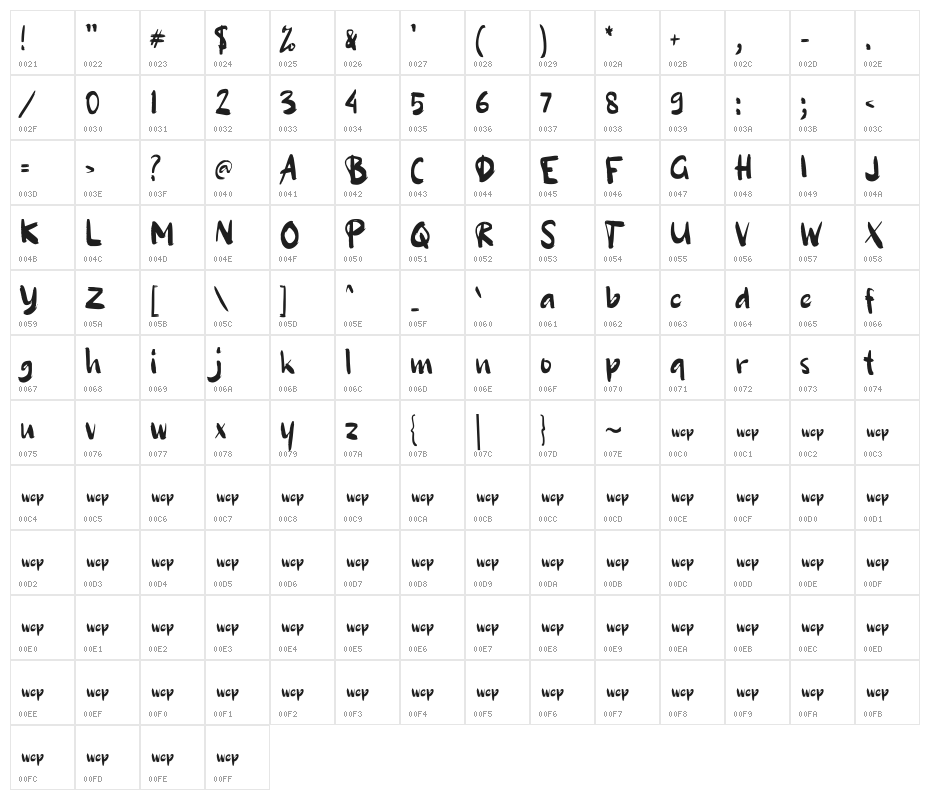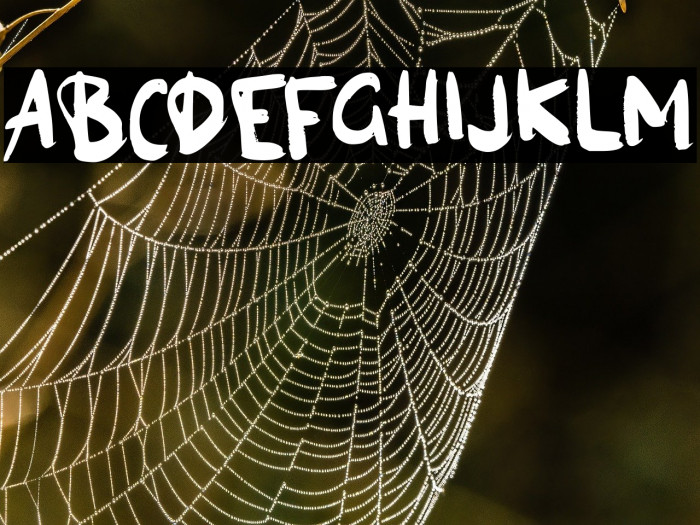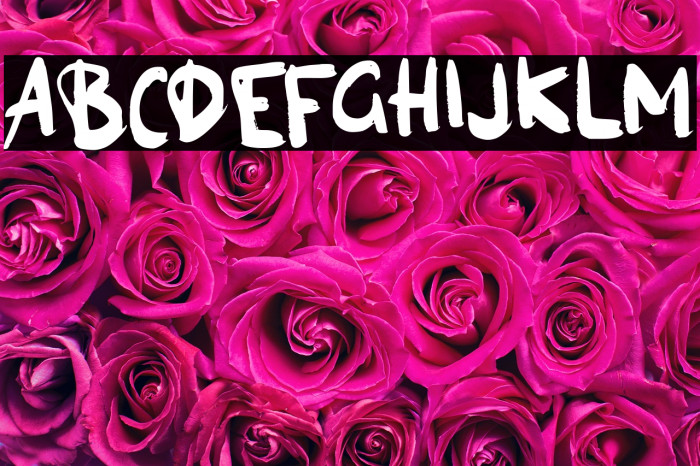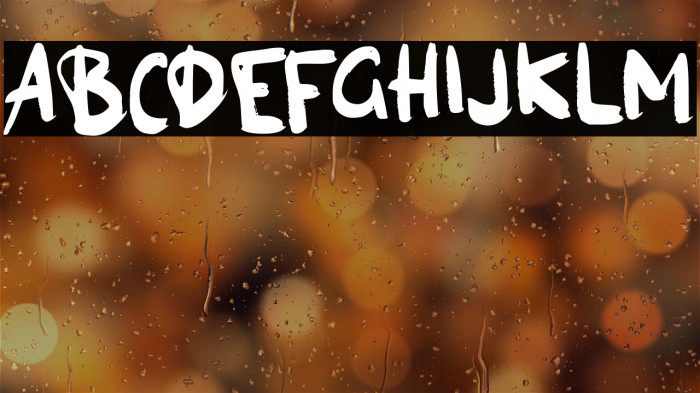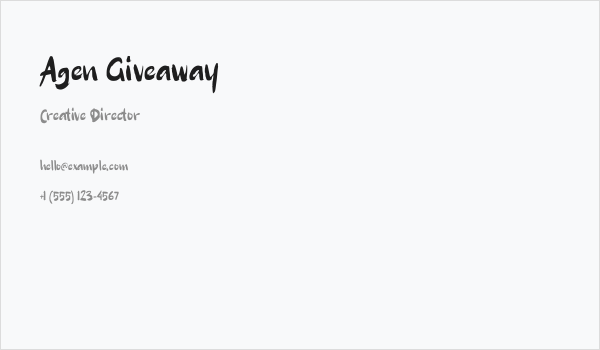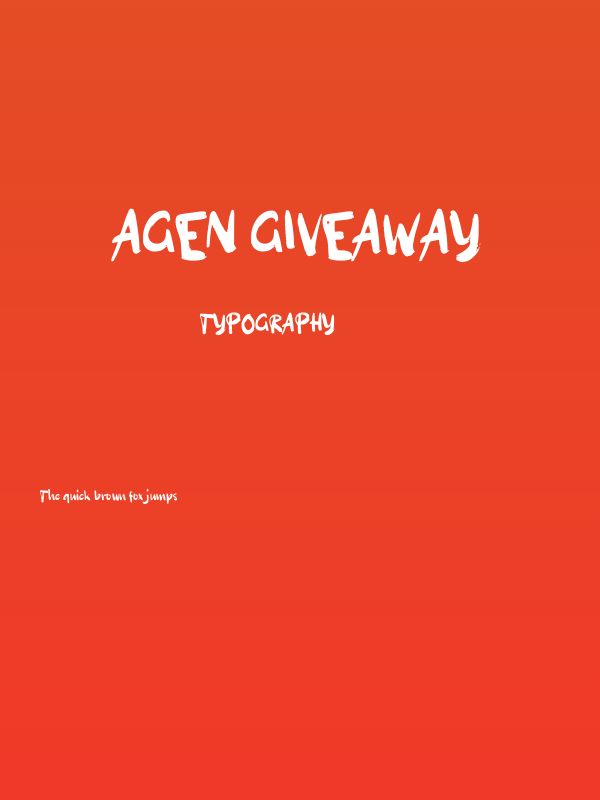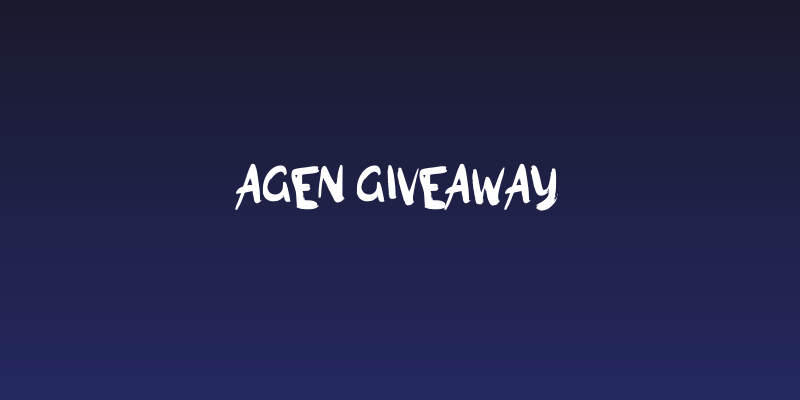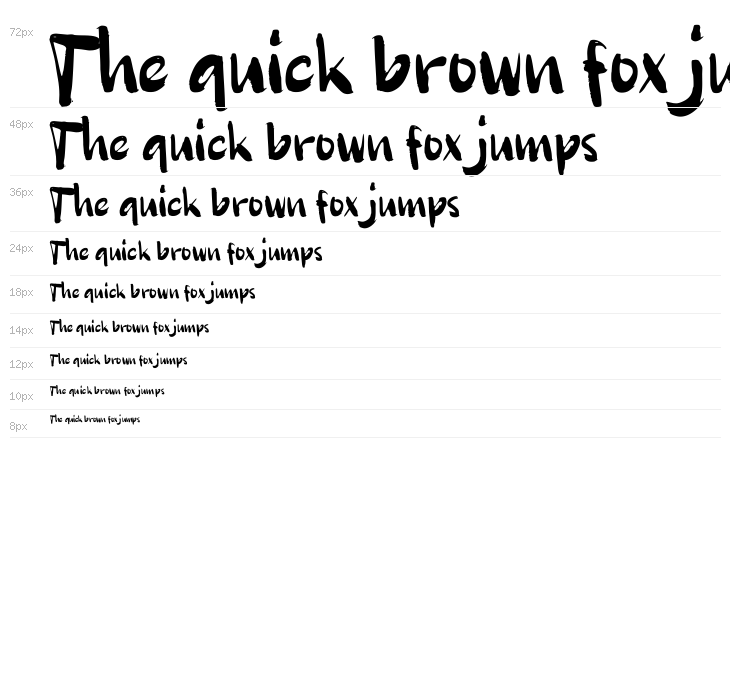
Agen Giveaway Font
Agen Giveaway Description
This font exhibits a bold and expressive handwritten style, characterized by its thick, brush-like strokes and dynamic, energetic forms. The uppercase and lowercase letters maintain a consistent flow, with slightly irregular edges that add a personal touch. The numerals and special characters follow the same stylistic approach, ensuring a cohesive look across all glyphs. Its bold presence makes it ideal for capturing attention, while the playful curves and angles give it a lively and informal feel.
| Proposed Projects | This font is perfect for creative projects such as posters, invitations, branding, and social media graphics where a personal and energetic touch is desired. |